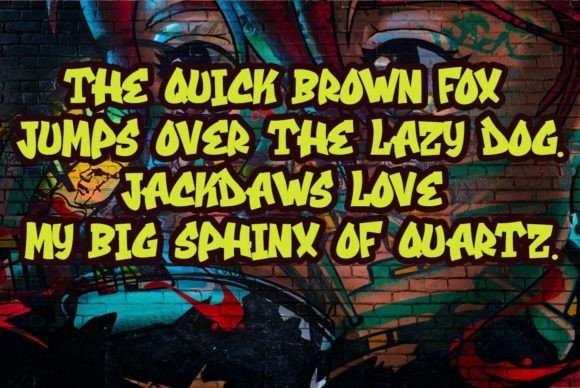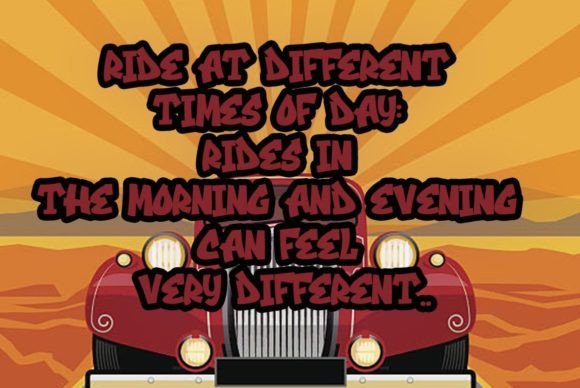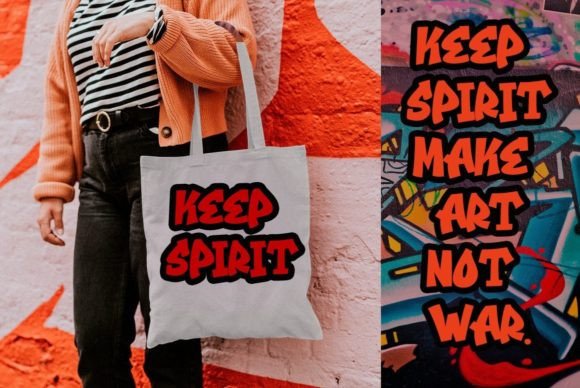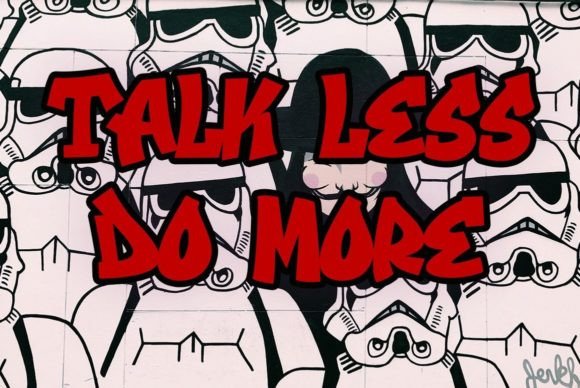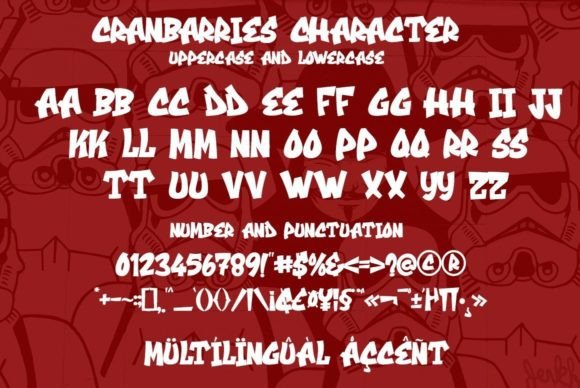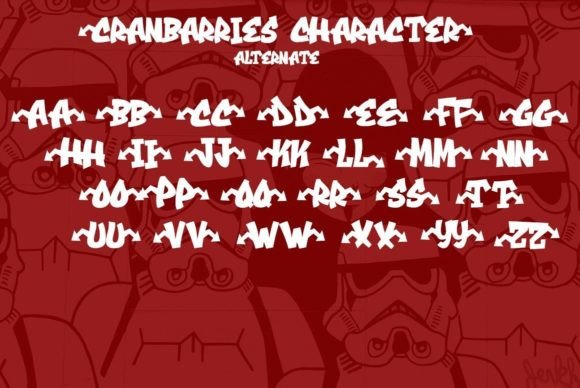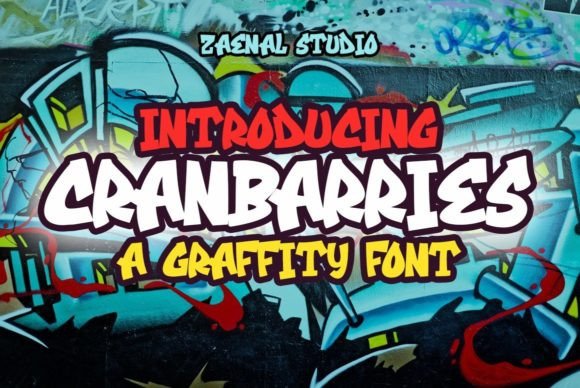
Cranbarries Font: The Ultimate Grafitti Display Font for Unique Brand and Logo Designs
Are you tired of using the same old fonts for your brand and logo designs? Do you want to add a touch of uniqueness and personality to your visual identity? Look no further than Cranbarries Font, a one-of-a-kind Grafitti display font that’s perfect for creating eye-catching and memorable designs. In this article, we’ll dive into the features and benefits of Cranbarries Font, and explore how it can elevate your brand and logo designs to the next level.
A Unique and Funny Grafitti Display Font
Cranbarries Font is a Grafitti display font that’s unlike any other. Its unique and funny style is perfect for adding a touch of personality to your brand and logo designs. With its bold and playful aesthetic, Cranbarries Font is sure to grab attention and leave a lasting impression on your audience. Whether you’re designing a logo, branding materials, or marketing collateral, Cranbarries Font is the perfect choice for creating a unique and memorable visual identity.
Perfect for Cartoons, Vintage Logos, and Branding
Cranbarries Font is a versatile font that’s perfect for a wide range of design applications. Its playful and whimsical style makes it ideal for cartoons, vintage logos, and branding materials. Whether you’re creating a logo for a children’s toy brand, a retro-style poster, or a bold and eye-catching billboard, Cranbarries Font is the perfect choice. Its unique and urban aesthetic is sure to add a touch of personality to your design and set it apart from the crowd.
Classy, Elegant, and Unique: The Benefits of Cranbarries Font
So, what sets Cranbarries Font apart from other fonts on the market? For starters, its unique and urban aesthetic is sure to add a touch of class and elegance to your design. Its bold and playful style is perfect for creating a memorable and eye-catching visual identity that will leave a lasting impression on your audience. Additionally, Cranbarries Font comes with a range of alternates and swashes, allowing you to customize your design and create a truly unique look.
PUA Encoded for Easy Access to Glyphs and Swashes
One of the best things about Cranbarries Font is that it’s PUA encoded, making it easy to access all of the glyphs and swashes. This means that you can easily customize your design and add a touch of personality to your brand and logo designs. With Cranbarries Font, you can create a unique and memorable visual identity that’s all your own.
Tips for Using Cranbarries Font in Your Designs
So, how can you get the most out of Cranbarries Font in your designs? Here are a few tips to get you started:
- Use Cranbarries Font as a statement piece: With its bold and playful aesthetic, Cranbarries Font is perfect for creating a statement piece that grabs attention and leaves a lasting impression.
- Experiment with alternates and swashes: Cranbarries Font comes with a range of alternates and swashes, allowing you to customize your design and create a truly unique look.
- Pair Cranbarries Font with other fonts: Cranbarries Font is a versatile font that pairs well with a range of other fonts. Experiment with different pairings to find the perfect combination for your design.
In conclusion, Cranbarries Font is a unique and funny Grafitti display font that’s perfect for brand and logo designs. Its bold and playful aesthetic is sure to grab attention and leave a lasting impression on your audience. With its PUA encoding and range of alternates and swashes, Cranbarries Font is the perfect choice for creating a memorable and eye-catching visual identity. Whether you’re a designer, crafter, or simply someone who loves to create, Cranbarries Font is a must-have font that’s sure to elevate your designs to the next level.